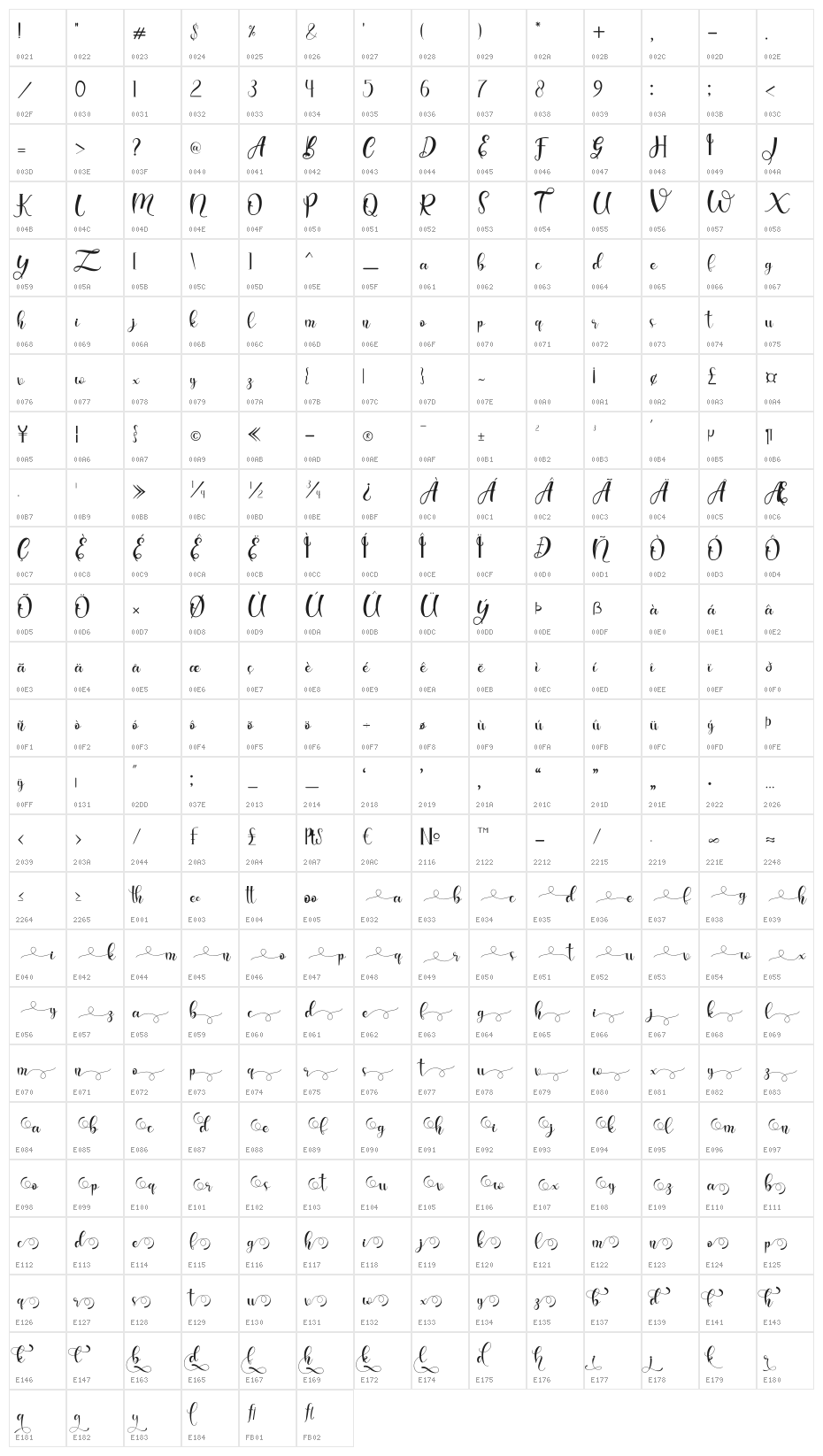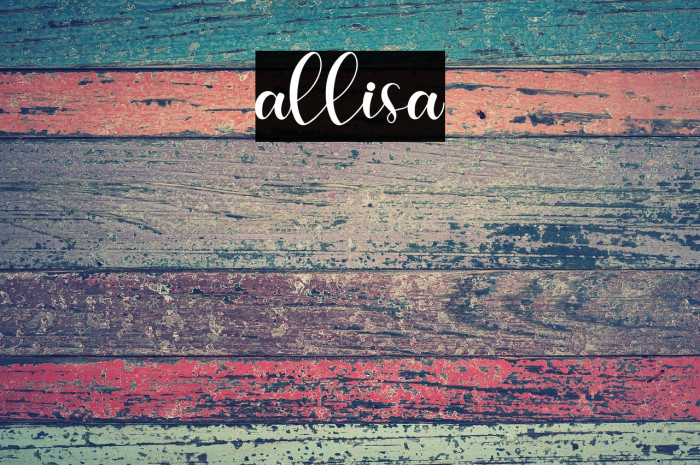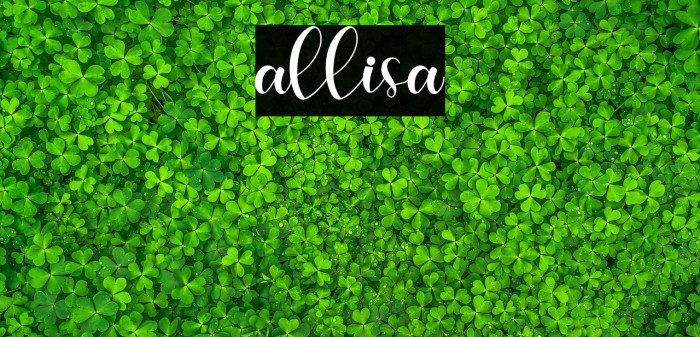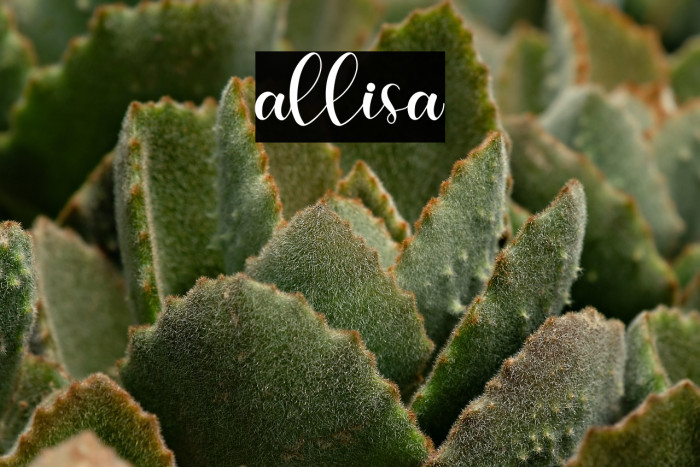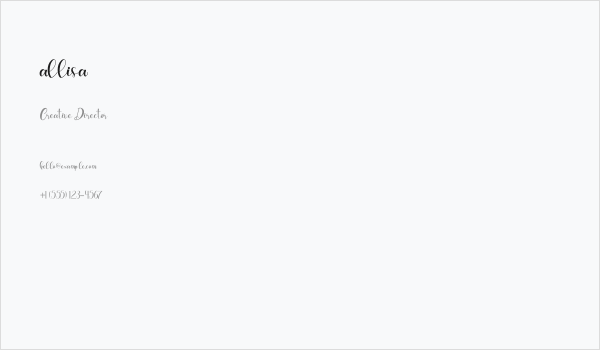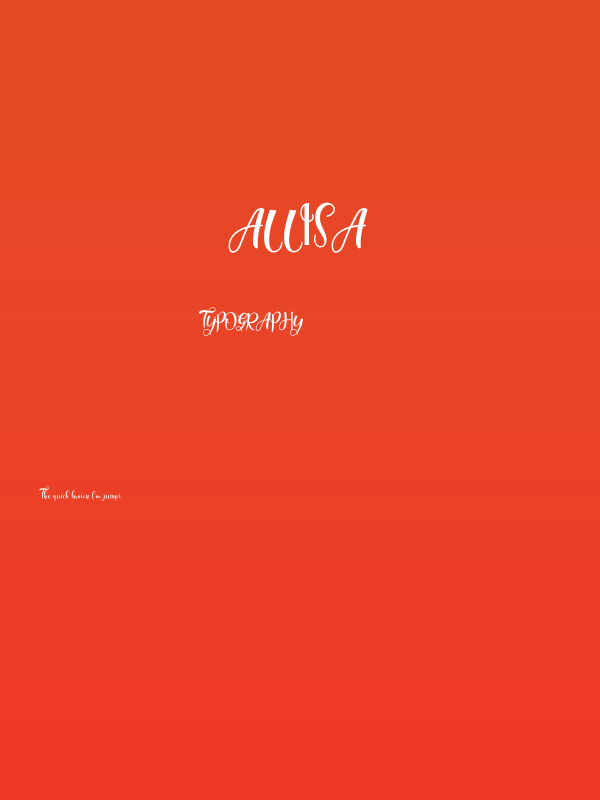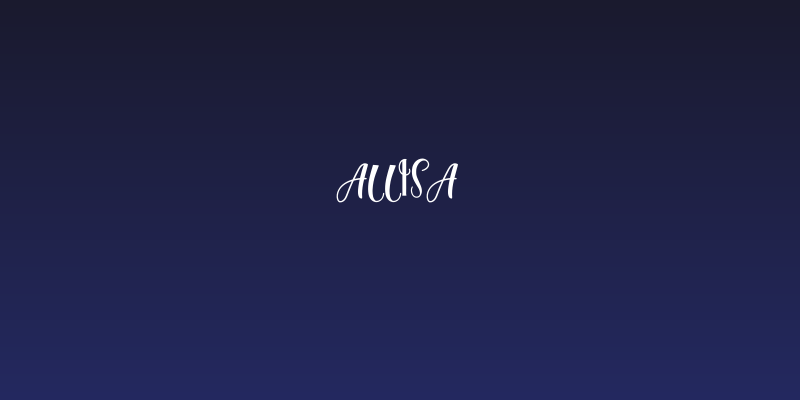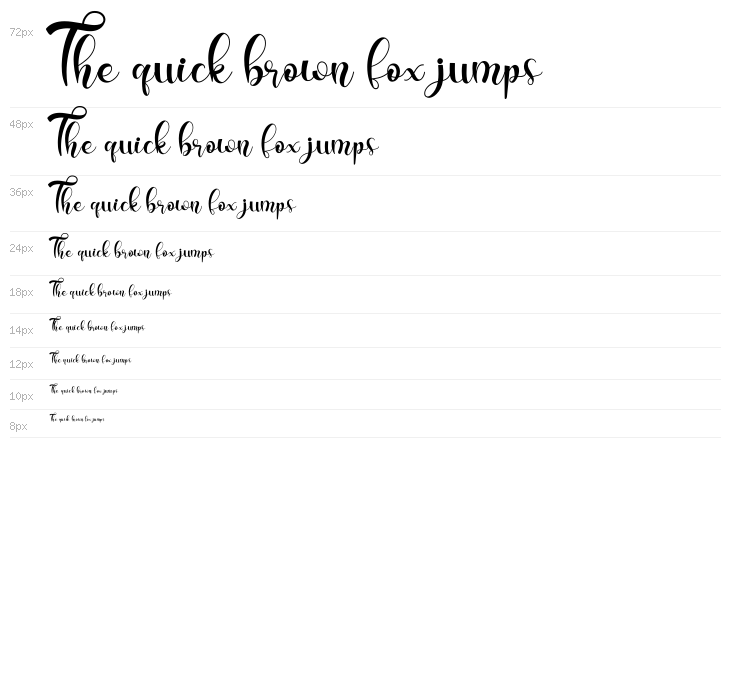
allisa Font
allisa Description
This font is a decorative script style characterized by its elegant and flowing letterforms. The uppercase letters feature intricate loops and swashes, giving them a sophisticated and artistic appearance. The lowercase letters maintain a consistent style, with smooth curves and a handwritten feel. The numerals are distinct and maintain the decorative theme, while the special characters are designed to complement the overall aesthetic. This font is ideal for projects that require a touch of elegance and creativity.
| Use Case | Logos, Invitations, Decorative Text |